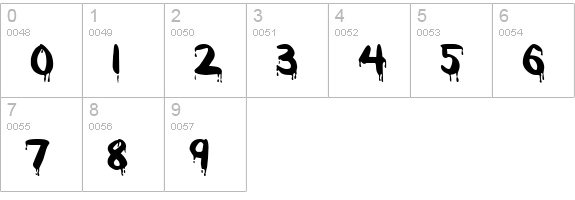
Introducing Bloody font, a captivating typeface that will send shivers down your spine with its edgy and macabre design. This hauntingly beautiful font is perfect for projects that require a touch of the dark and mysterious. With its intricate detailing and dramatic strokes, Bloody font is bound to leave a lasting impression. What makes Bloody font even more enticing is that it is available for free! Yes, you heard that right. This mesmerizing font can be freely downloaded at FontsMarket.com, making it accessible to all those who seek to add a touch of the macabre to their designs. Whether you're working on a horror movie poster, a Halloween party invitation, or a gothic-themed website, Bloody font is here to elevate your project to new levels of spine-chilling greatness. Its unique and bold character set will make your text stand out, creating an atmosphere of suspense and intrigue. But don't be fooled by its name, Bloody font isn't just limited to horror-related projects. Its versatility allows it to be used in various contexts, from album covers to book titles, ensuring that your design will leave a lasting impact on anyone who comes across it. Download Bloody font today from FontsMarket.com and unleash the dark side of your creativity. Let your designs speak volumes with this captivating typeface that is freely available to all. Transform your projects into works of art that will leave a lasting impression on your audience. Embrace the darkness and let Bloody font be your guide.